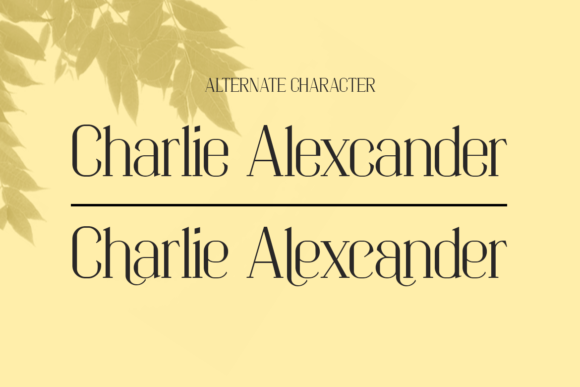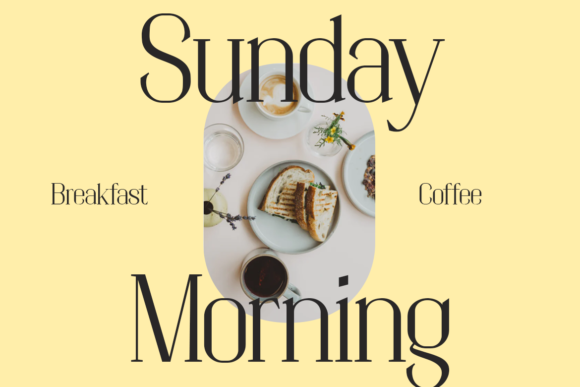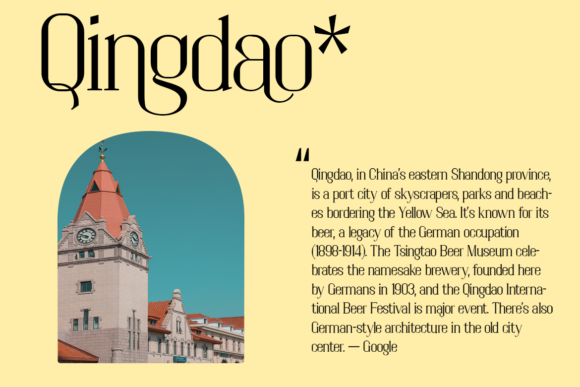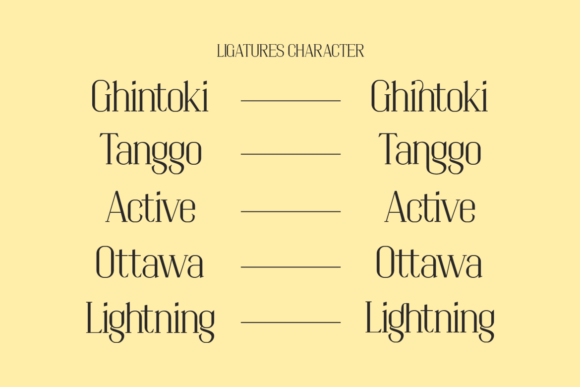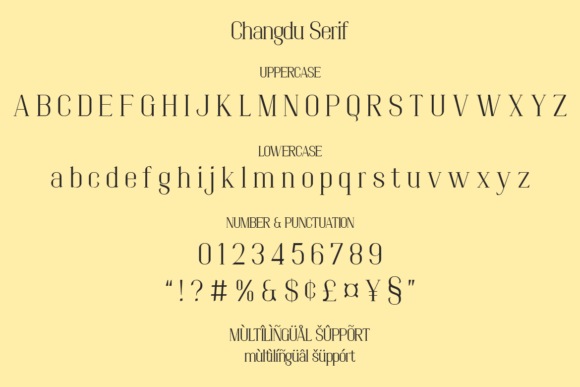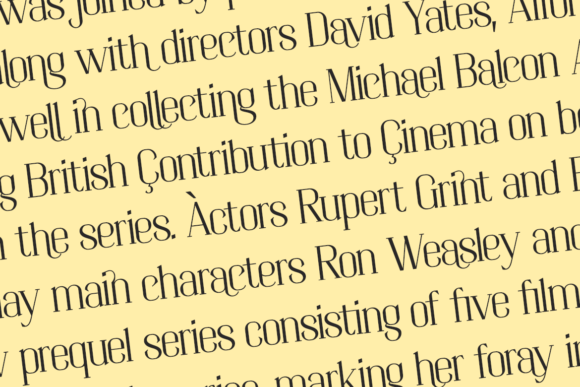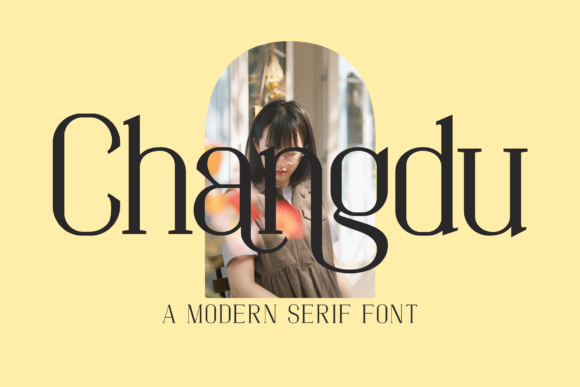
Introducing Changdu Font: Elevate Your Designs with a Touch of Modern Sophistication
In the world of typography, fonts play a crucial role in conveying messages, evoking emotions, and setting the tone for a brand or design. For designers and crafters seeking a modern, authentic, and visually striking serif font, Changdu Font is an exceptional choice. This thin lettered font boasts a unique blend of simplicity and strong visual impact, making it an ideal addition to any creative project.
What Makes Changdu Font Stand Out?
Changdu Font is characterized by its sleek, modern design and authentic serif features. Its thin lettering gives it a distinctive elegance, setting it apart from more traditional fonts. The simplicity of Changdu Font is one of its most compelling attributes; it offers a clean slate that allows designers to craft stunning visuals without overwhelming the viewer. Yet, despite its simplicity, this font packs a strong visual punch, ensuring that your creations stand out in a crowded design landscape.
Key Features of Changdu Font
- Modern and Authentic Serif Design: Changdu Font brings a contemporary twist to traditional serif fonts, offering a fresh and updated look that appeals to modern design sensibilities.
- Thin Lettering: The font’s thin lettering adds a touch of sophistication and elegance, making it perfect for designs that require a subtle yet impactful typographic solution.
- Simple yet Visually Impactful: The clean lines and minimalistic approach of Changdu Font ensure that it complements a wide range of design elements without overpowering them.
- Versatility: Whether you’re working on branding, advertising, packaging, or digital content, Changdu Font’s versatility makes it an excellent choice for various applications.
For designers and crafters, finding the right font can be a game-changer. Changdu Font offers several benefits that can elevate your work:
- Enhanced Visual Appeal: With Changdu Font, you can instantly enhance the visual appeal of your designs, making them more engaging and captivating to your audience.
- Time Efficiency: The clean and simple design of Changdu Font means you can achieve professional-looking results quickly, saving time without compromising on quality.
- Consistency: Using a unique and distinctive font like Changdu helps in building a consistent visual identity for your brand or project, setting it apart from competitors.
How to Use Changdu Font Effectively
To make the most of Changdu Font, consider the following tips:
- Pair with Complementary Fonts: While Changdu Font is versatile on its own, pairing it with complementary fonts can add depth and interest to your designs.
- Experiment with Sizes and Weights: Although Changdu is a thin lettered font, experimenting with different sizes and weights can help you achieve the desired visual hierarchy and emphasis.
- Consider the Context: Ensure that the font aligns with the message and tone of your project. Changdu Font’s modern and elegant feel makes it suitable for a wide range of applications, from luxury brands to digital content.
Changdu Font is a remarkable addition to any designer’s or crafter’s toolkit. Its modern, authentic serif design, combined with its thin lettering and strong visual impact, makes it an excellent choice for those looking to elevate their creations. Whether you’re aiming to enhance your brand’s visual identity or simply looking for a font that can add a touch of sophistication to your project, Changdu Font is sure to impress. Discover the potential of Changdu Font and take your designs to the next level with its unique blend of simplicity, elegance, and visual appeal.